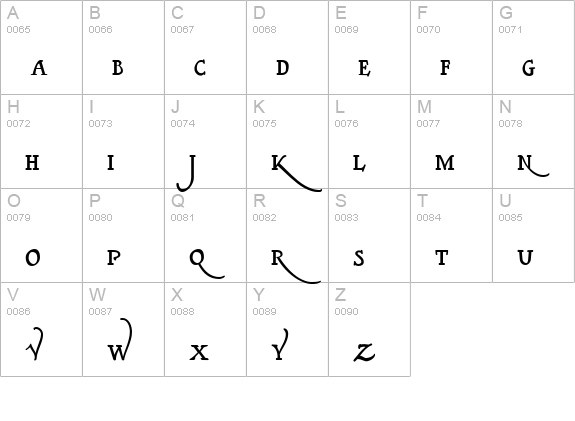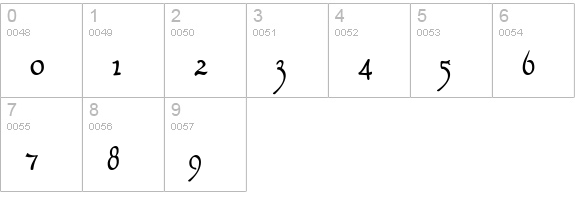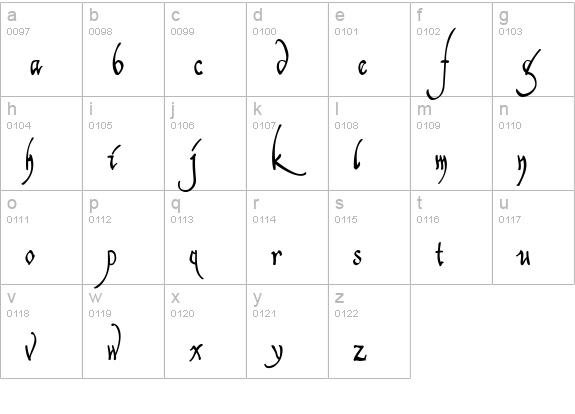
Clerica Medium Font Details
Clerica Medium is a balanced, medium-weight variant in the Clerica typeface family \xE2\x80\x94 well suited to sub-headlines, navigation, and balanced editorial work.
Clerica Medium is a versatile and elegant font that strikes the perfect balance between professionalism and creativity. With its clean lines and classic style, this font is ideal for a wide range of design projects, from branding to editorial layouts. The medium weight of Clerica adds just the right amount of visual impact without overwhelming the overall design. And the best part? Clerica Medium is available for free download at FontsMarket.com. This means you can easily access this high-quality font without any cost, making it a valuable addition to your font library. Whether you're a designer looking for a reliable go-to font or a business owner in need of a polished typeface for your marketing materials, Clerica Medium is sure to meet your needs with its timeless appeal and professional design.